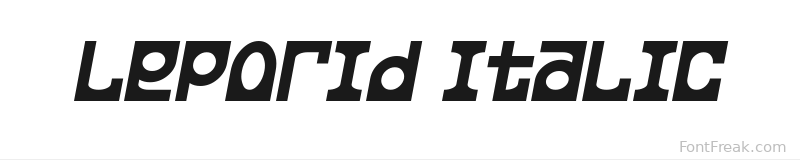
Leporid Italic
About Leporid Italic
Leporid Italic is a striking display font designed by GGBot, classified as a decorative typeface. Released in 2023, this font showcases a unique blend of modernity and flair, making it an eye-catching choice for a variety of design projects. Its bold stroke weight provides a strong presence, while the contrasting elements in its design create a dynamic visual appeal. The spacing is thoughtfully crafted, ensuring legibility without sacrificing style, and the decorative elements add a playful touch that makes it stand out.
This font shines in several specific use cases. Its distinctive character makes it ideal for wedding invitations, where it can convey elegance and personal flair. Additionally, Leporid Italic is perfect for movie posters, offering a contemporary vibe that captures attention and evokes curiosity. Restaurant menus can benefit from its stylish appearance, elevating the overall dining experience and enticing customers. Moreover, it can be used effectively in branding materials for creative businesses, helping to establish a unique identity.
What sets the Leporid Italic font apart is its ability to balance boldness with elegance, making it suitable for both formal and casual applications. Its unique design elements invite exploration and creativity, ensuring that any project featuring this font will leave a memorable impression. Don't miss the opportunity to elevate your designs with the Leporid Italic font free download, a perfect addition to your typography toolkit.